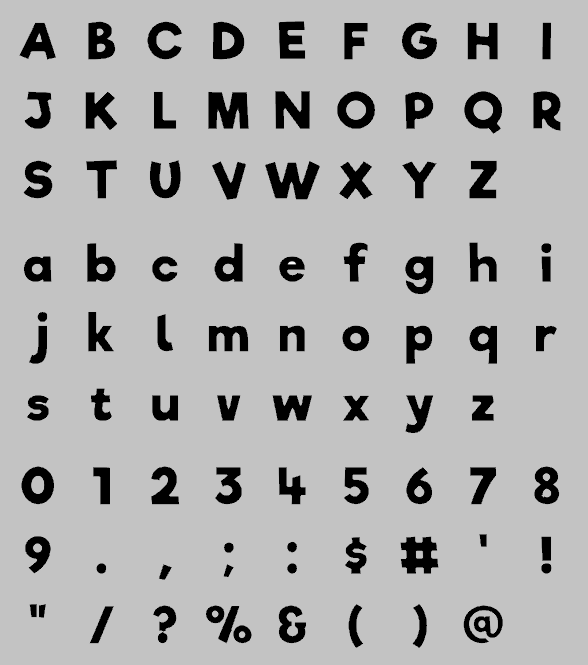
Riffic Font is a sans-serif geometric typeface that has recently gained popularity with designers and branding experts. Riffic Font is more than just a typeface; it is a creative element that, like all other fonts, has a particular style and can be applied in many ways. Its usability is vast and ranges from advertising to web design and even logo and merchandise branding.
What is Riffic Font?
The Riffic font was created by Nini Prower and released by the InkyType company. This font is ideal for headlining purposes, logos, and display designs because it was crafted to draw attention. Its clean and powerful strokes confers exceptional legibility which is a primary requirement for many professional designers  to create a contemporary and professional look.
This unique typeface is applicable to a range of creative projects, from print to digital media, and is highly sought after for pieces that require clarity and boldness.
Key Features of Riffic Font
The Riffic Font offers distinct features that make it an excellent choice for diverse design needs:
- Bold & Geometric Style: Designed for creating strong, eye-catching headlines and titles.
- Versatile Typeface: Suitable for both digital platforms and print materials.
- Clean & Modern Appearance: Simplistic design that enhances readability.
- Available in Multiple Weights: Provides flexibility in design choices.
- Highly Legible: Maintains clarity and readability even in large displays or signage.
Applications of Riffic Font
The Riffic Font finds its place in various creative projects. Here are some popular applications:
- Logo Design: Ideal for crafting bold, modern brand identities that stand out.
- Headings & Titles: Perfect for use in website headers, editorial titles, and promotional posters.
- Merchandise Design: Frequently used in designing T-shirts, mugs, and other custom products.
- Advertising & Marketing: Great for brochures, digital advertisements, and print campaigns.
- Web Design: Enhances the aesthetic appeal of websites with its bold and structured appearance.
- Social Media Graphics: Ideal for creating impactful, attention-grabbing posts.
Conclusion: Riffic Font
The Riffic Font is an impressive geometric typeface that suits all creative works. It is able to enhance logos, headings and social media graphics, which helps in modernizing the professional image.